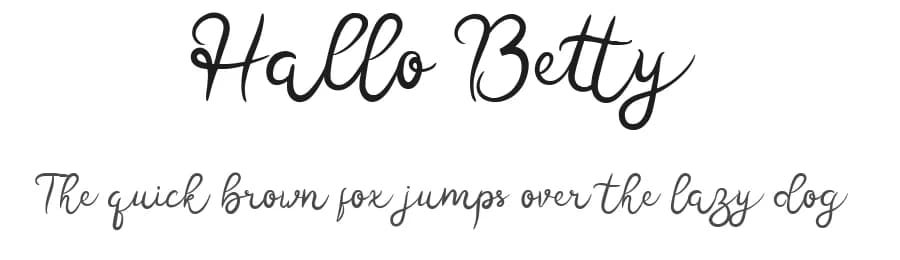
About Hallo Betty Font
Hallo Betty is a modern, handwritten, modern calligraphy font. The shape is modern and unique and the writing style is very natural.
Hallo Betty Font is a script font that shines as a display or heading face. Pair it with a clean sans-serif or serif font for body text β the contrast creates a clear hierarchy while the two styles stay balanced and easy to read.